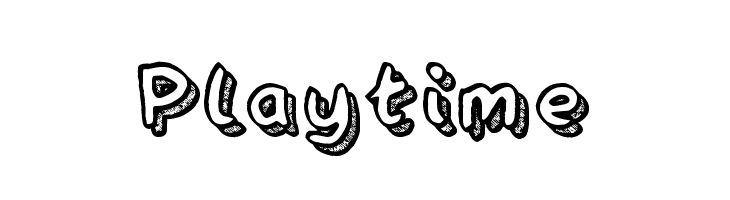
A playful, handwritten font with bold, rounded strokes and a casual style.
A bold, hand-drawn font with a playful, sketch-like texture.
A playful, hand-drawn font with bold outlines and textured fills.
A playful, hand-drawn font with bold, rounded characters and a whimsical style.
A playful, handwritten font with rounded edges and a casual style.
A playful, bold font with rounded, chunky characters and a hand-drawn feel.